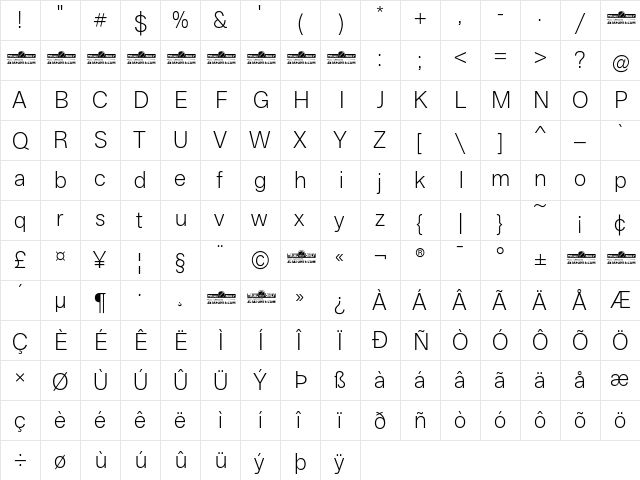
Boring Sans A Trial Light
| Foundry | Zetafonts |
| Designer | Cosimo Lorenzo Pancini |
Design Context for Boring Sans A Trial Typeface
Boring Sans A Trial is a composed and adaptable typeface that performs quietly and consistently across a wide range of design contexts. Its slender proportions lend an understated elegance to any composition.